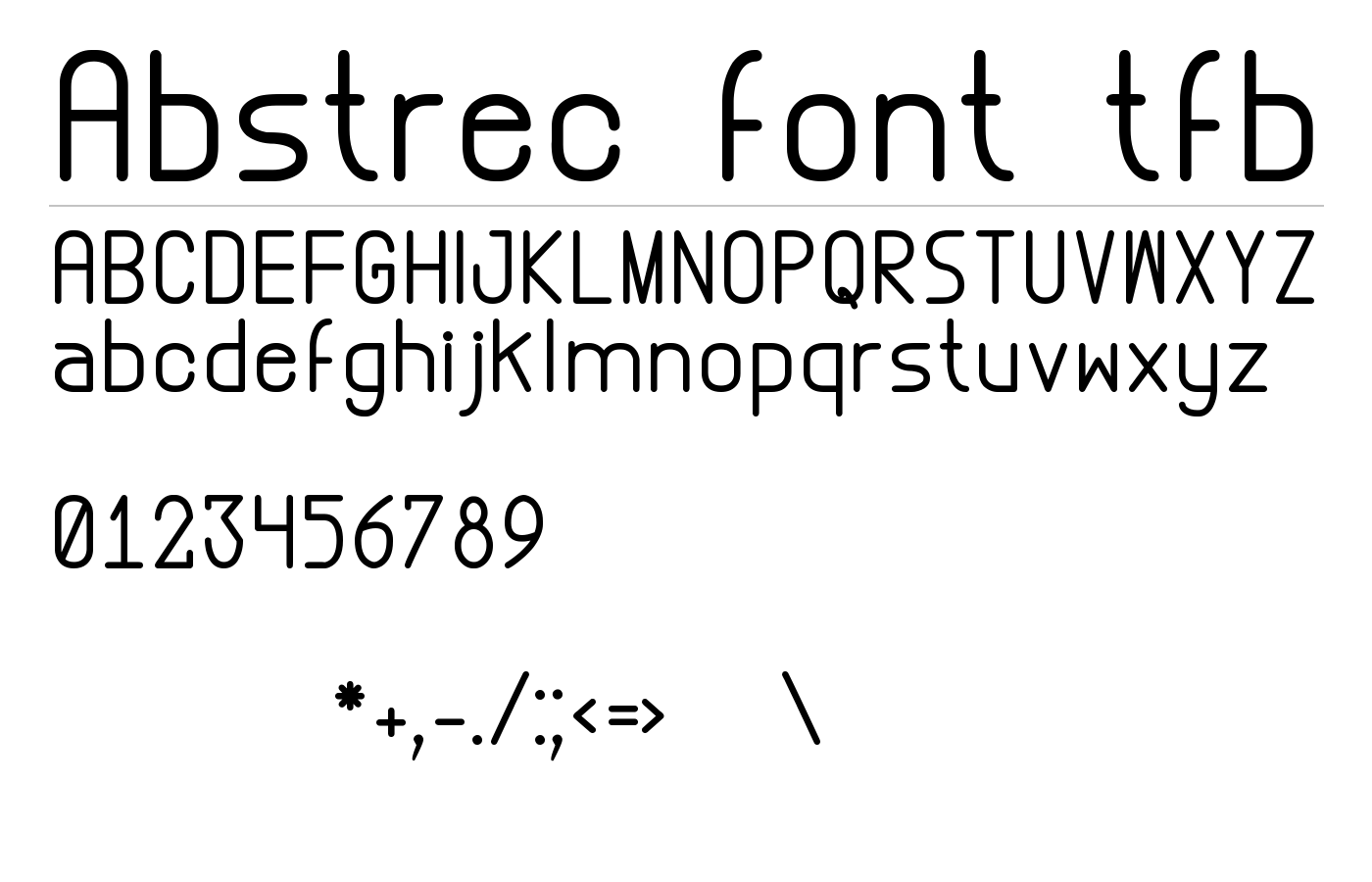
Abstrec font tfb is a sleek, modern sans serif typeface with a condensed and tall structure that lends a clean, futuristic look. Its uniform stroke weight, subtle rounded corners, and distinctive single-story characters create an approachable yet technical feel, making it ideal for tech branding, editorial headlines, and digital interfaces. This font's clear readability and unique geometric style make it a perfect choice for contemporary design needing a fresh, minimalist edge.